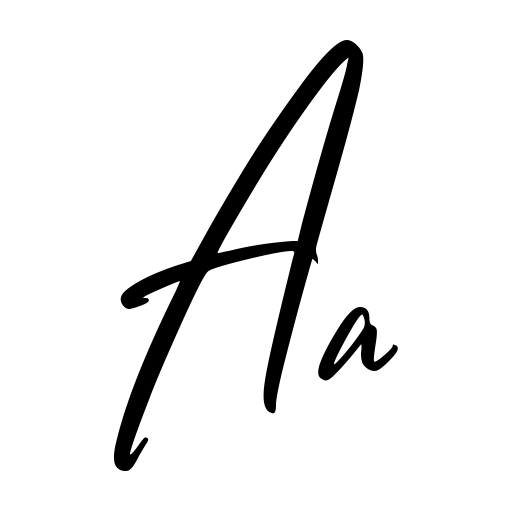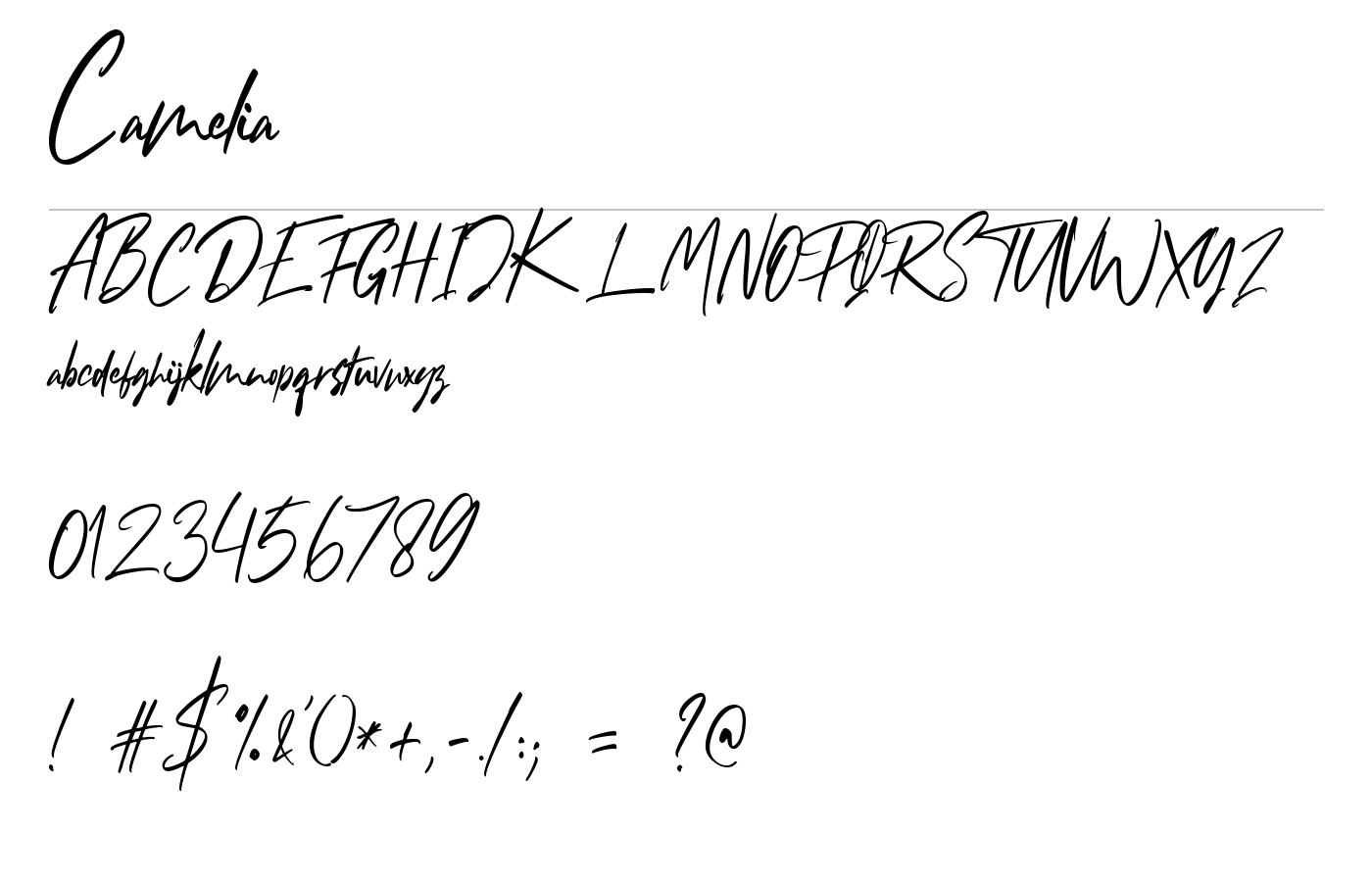
Camelia is a loose, casual script font with a lively, handwritten feel that features smooth, flowing strokes and a slightly irregular baseline, giving it an authentic, personal touch. Its slender, elegant letterforms work well for creative projects, branding, and invitations where a stylish yet approachable look is desired. This font brings warmth and character, making it perfect for modern, artistic, and fashion-oriented designs.
Camelia Font
About Camelia Font